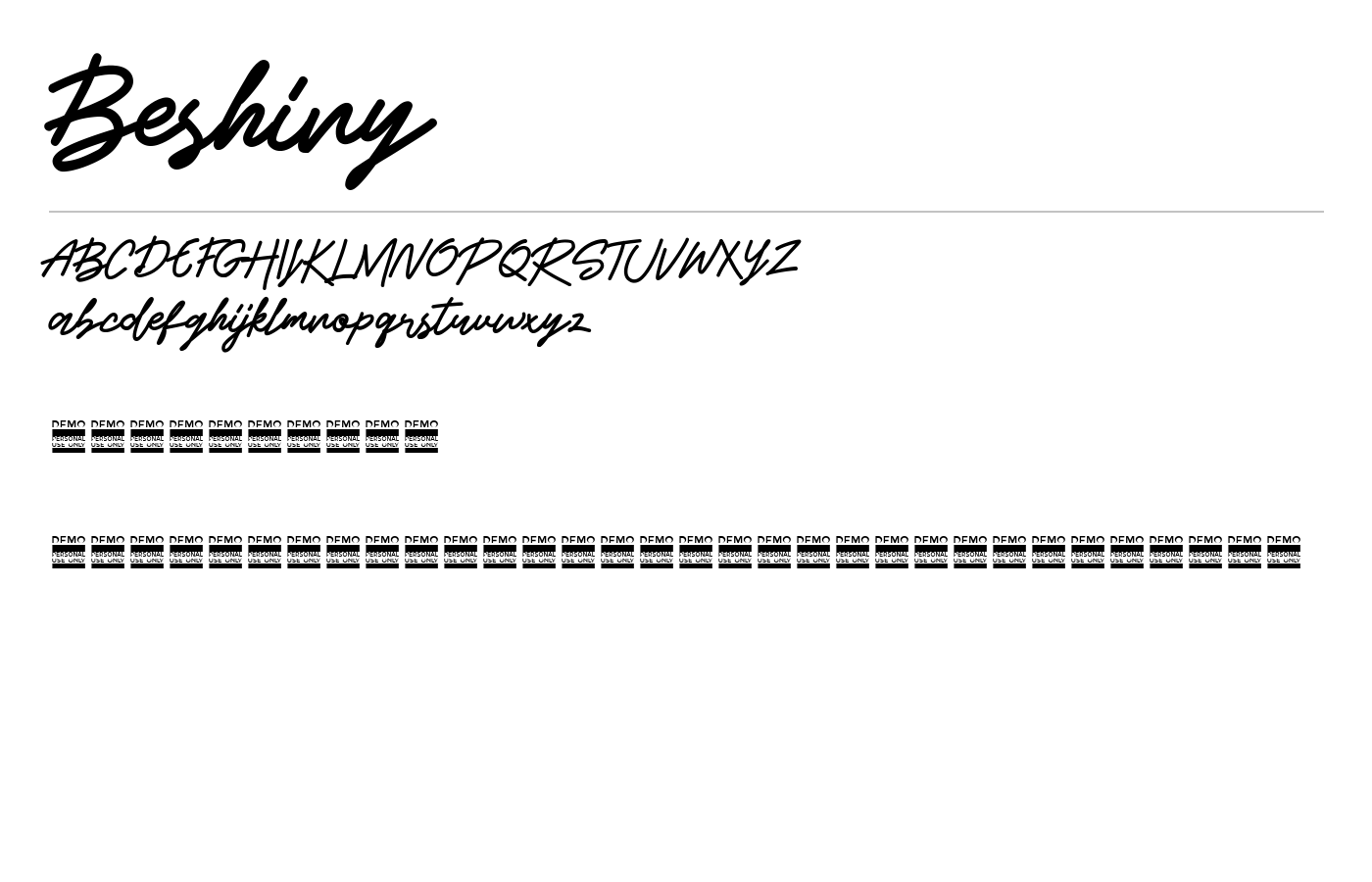
Beshiny is a lively, handwritten script font with a casual yet elegant feel, featuring smooth, flowing strokes and a moderate contrast that gives it a natural, personal touch. Its slightly condensed letterforms and balanced x-height make it ideal for branding, invitations, and headlines where a warm, friendly, and approachable style is desired. Perfect for projects that need a modern, handwritten vibe with a touch of sophistication.
Beshiny Font
About Beshiny Font